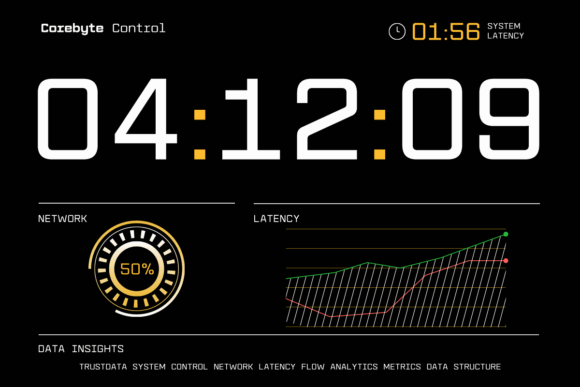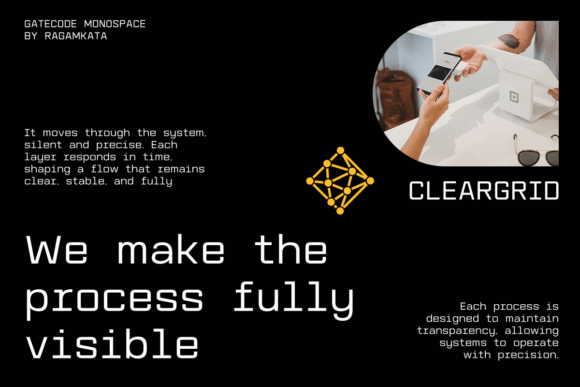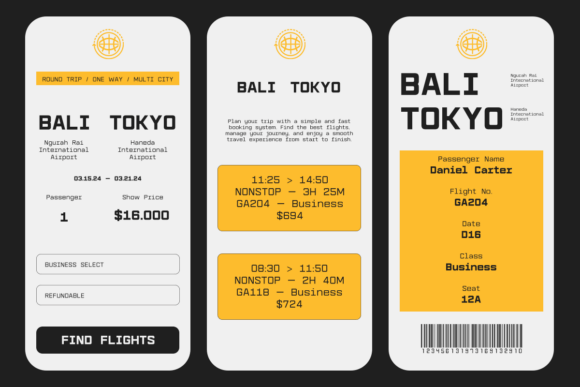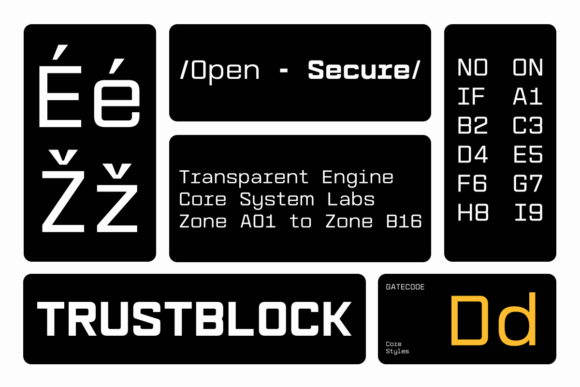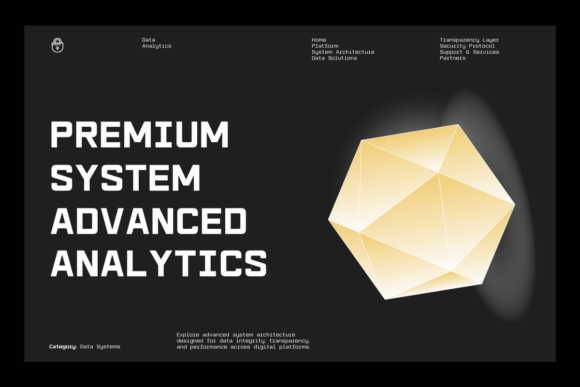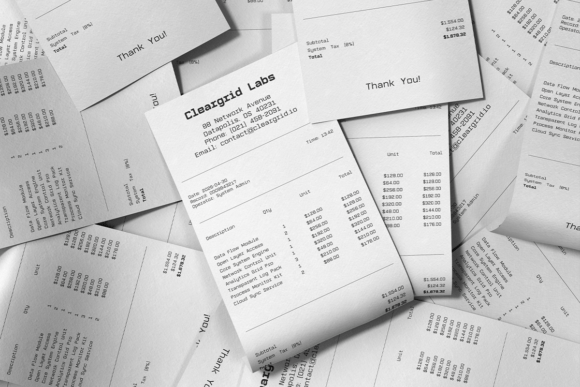
Introducing Gatecode Font: The Modern Monospace Sans Serif for Futuristic Designs
In the realm of digital design, the right typography can make all the difference. For designers and crafters seeking a font that embodies the spirit of modern technology, Gatecode Font is an exceptional choice. This modern monospace sans serif font is specifically designed to capture the essence of futuristic interfaces, coding systems, and digital technology aesthetics.
Design and Features of Gatecode Font
Gatecode is not just another font; it’s a design statement. Its clean lines, precise curves, and monospace characteristics make it an ideal choice for any project that demands a contemporary, tech-savvy look. Here are some key features that make Gatecode stand out:
- Monospace Design: Each character in Gatecode takes up the same amount of horizontal space, making it perfect for coding, programming, and digital interfaces.
- Sans Serif Aesthetic: The font’s sans serif design gives it a clean, modern look that’s easy on the eyes, perfect for UI/UX design, digital products, and tech branding.
- Versatility: Gatecode is designed to be versatile. It works beautifully across various mediums, from technology branding and gaming visuals to posters, editorial layouts, and social media graphics.
- Contemporary Character: The font brings a strong, contemporary character to any design, making it perfect for designers looking to infuse their work with a modern, digital aesthetic.
Use Cases for Gatecode Font
Gatecode’s versatility is one of its most compelling features. Here are some of the many use cases where Gatecode can elevate your design:
Technology Branding
For tech companies looking to establish a modern and innovative brand identity, Gatecode offers a sleek and professional look.
UI/UX Design
Gatecode’s monospace and clear design makes it an excellent choice for user interfaces and user experience design, enhancing readability and user interaction.
Gaming Visuals
In the gaming industry, visuals are crucial. Gatecode can add a futuristic touch to game titles, menus, and in-game text, enhancing the overall gaming experience.
Startup Identity
Startups need a brand identity that communicates innovation and forward-thinking. Gatecode helps startups achieve this with its modern and tech-inspired aesthetic.
Posters and Editorial Layouts
For print materials like posters and editorial layouts, Gatecode offers a fresh and contemporary look, especially for themes related to technology, science fiction, and digital art.
Web Design
On the web, Gatecode can be used for headings, body text, and even coding snippets, providing a cohesive and modern look to websites, especially those related to tech and digital services.
Coding Themes and Digital Products
For developers and digital product designers, Gatecode is a perfect match. It enhances the coding environment and digital product interfaces with its monospace design and tech-inspired aesthetic.
Social Media Graphics
Gatecode can also be used to create engaging social media graphics that stand out. Its modern look makes it ideal for infographics, tech-related posts, and digital marketing materials.
Cyber-Inspired Creative Projects
For creative projects inspired by cyberpunk, futuristic themes, and digital art, Gatecode provides a typography that complements and enhances the visual narrative.
Why Choose Gatecode Font?
Choosing Gatecode Font for your design projects comes with several benefits:
- Modern Aesthetic: It provides a modern, clean, and digital look that’s hard to achieve with traditional fonts.
- Versatility: Its versatility means you can use it across a wide range of projects, from digital interfaces to print materials.
- Readability: The monospace design and clear lines ensure high readability, even at small sizes.
- Uniqueness: Gatecode offers a unique aesthetic that can help your designs stand out in a crowded digital landscape.
| Author | RagamKata Studio |
Gatecode Font is a powerful tool for designers and crafters looking to infuse their work with a modern, tech-driven aesthetic. Its design, versatility, and range of use cases make it an excellent choice for anyone working on projects that demand a contemporary and digital look. Whether you’re building a tech brand, designing digital interfaces, or creating futuristic visual concepts, Gatecode is a font that can help you achieve your design goals with style and sophistication.